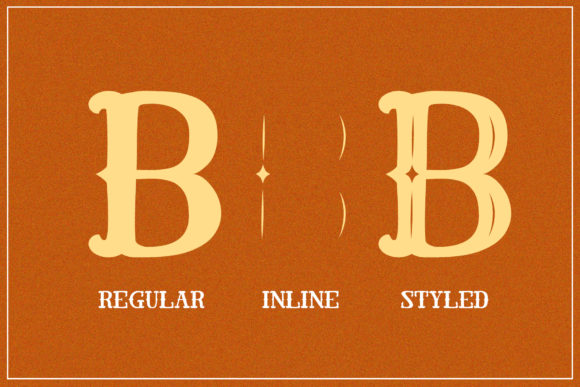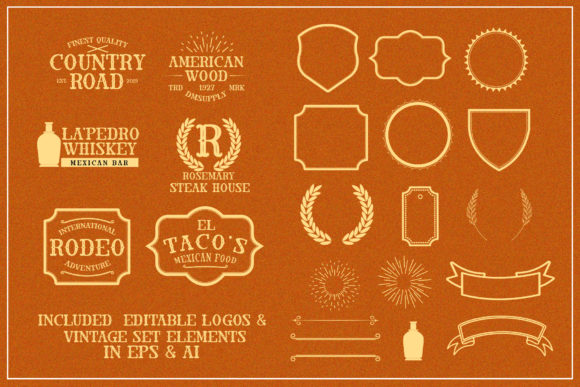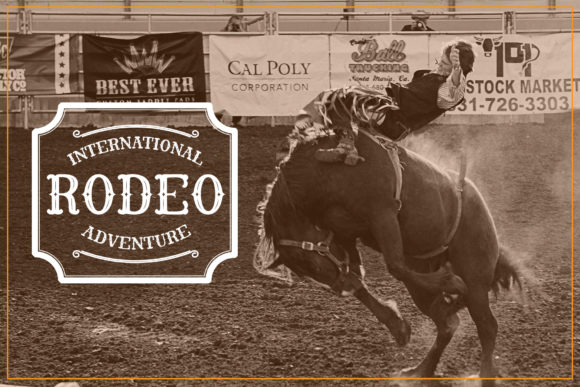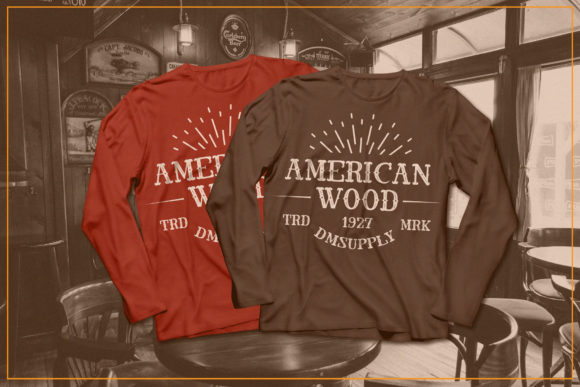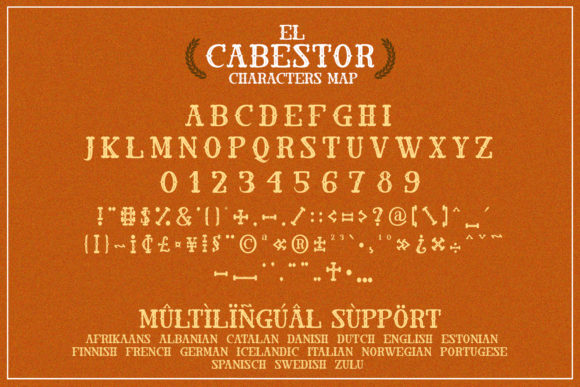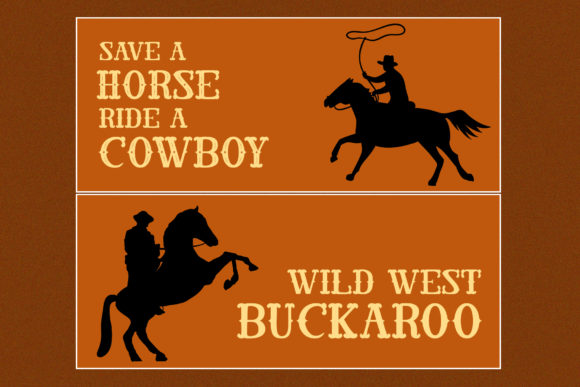
Introducing El Cabestor Font: The Ultimate Retro Western Display Font
Are you looking for a font that exudes a powerful and bold vibe for your Western-themed design project? Look no further than El Cabestor Font! This stunning retro-themed display font is perfectly tailored to add a touch of rugged elegance to any design. In this article, we’ll dive into the world of El Cabestor Font, exploring its features, uses, and benefits for designers and crafters alike.
The Inspiration Behind El Cabestor Font
El Cabestor Font draws inspiration from the classic Western fonts of the past, with a modern twist. Its bold and rugged design makes it perfect for creating eye-catching headlines, titles, and logos that demand attention. The font’s retro vibe is reminiscent of the Wild West era, evoking feelings of freedom, adventure, and rebellion.
Key Features of El Cabestor Font
- Bold and Powerful Design: El Cabestor Font boasts a bold and powerful design that’s perfect for making a statement.
- Retro-Themed: The font’s retro theme is inspired by the classic Western fonts of the past, with a modern twist.
- Display Font: El Cabestor Font is a display font, designed specifically for use in headlines, titles, and logos.
- Western-Themed: The font is perfectly tailored for any Western-themed design project, including posters, flyers, and packaging.
Uses for El Cabestor Font
El Cabestor Font is a versatile font that can be used in a variety of design projects, including:
- Posters and Flyers: Create eye-catching posters and flyers for Western-themed events, such as rodeos, concerts, and festivals.
- Logos and Branding: Use El Cabestor Font to create bold and memorable logos for Western-themed businesses, such as cowboy apparel and accessories.
- Packaging: Add a touch of rugged elegance to packaging for Western-themed products, such as whiskey, BBQ sauce, and outdoor gear.
- Signage: Use El Cabestor Font to create bold and attention-grabbing signage for Western-themed businesses and events.
El Cabestor Font offers a range of benefits for designers and crafters, including:
- Easy to Read: Despite its bold design, El Cabestor Font is easy to read, even at smaller sizes.
- Highly Versatile: The font can be used in a variety of design projects, from posters and flyers to logos and packaging.
- Unique and Memorable: El Cabestor Font is a unique and memorable font that will help your design stand out from the crowd.
- Time-Saving: With El Cabestor Font, you can create professional-looking designs in no time, saving you time and effort.
Tips for Using El Cabestor Font
Here are some tips for getting the most out of El Cabestor Font:
- Use it Sparingly: El Cabestor Font is a bold font, so use it sparingly to avoid overwhelming your design.
- Pair it with Other Fonts: Pair El Cabestor Font with other fonts to create a unique and visually appealing design.
- Pay Attention to Kerning: Pay attention to kerning to ensure that your text looks professional and polished.